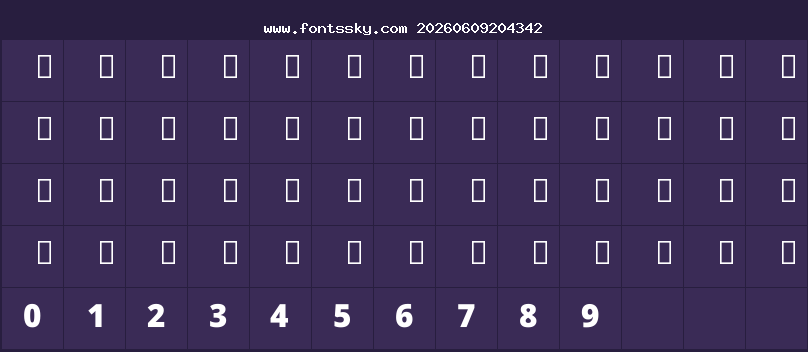
Noto Sans Oriya UI Blk Preview
• Font Name: Noto Sans Oriya UI Blk
• Font ID: 2.000;GOOG;NotoSansOriyaUI-Black
• Full Font Name: Noto Sans Oriya UI Black
• Version: Version 2.000
• PostScript Name: NotoSansOriyaUI-Black
• Character Count: 150
• Designer: Amélie Bonet and Sol Matas
• Manufacturer: Google LLC
• Description: Designed by Amélie Bonet and Sol Matas
About Noto Sans Oriya UI Blk.ttf
Noto Sans Oriya UI Blk.ttf is a modern, elegant sans-serif font designed for ultimate readability and visual harmony. Perfect for branding, headlines, web design, and print materials.